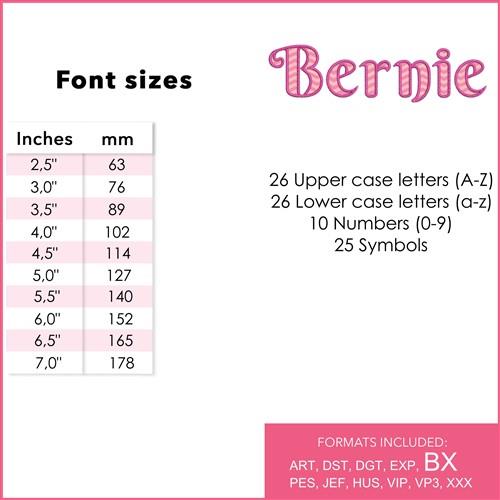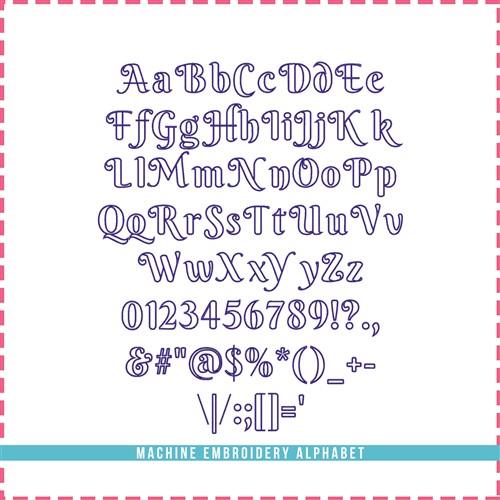
Maya Kreations is happy to present Bernie Applique Font machine embroidery font which has Decorative machine embroidery font with playful pink colors and a mix of solid and striped patterns. Ideal for adding charm to children's clothing and accessories. Available in PES, DST, and 8 other formats. included. If you would like to view more embroidery fonts and alphabets please search our embroidery fonts page.